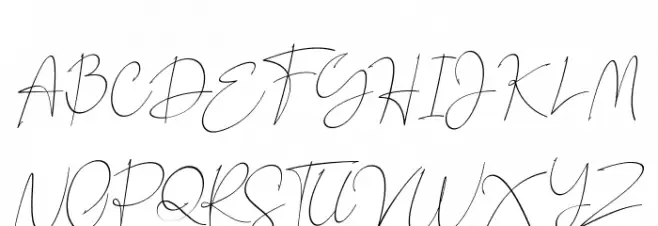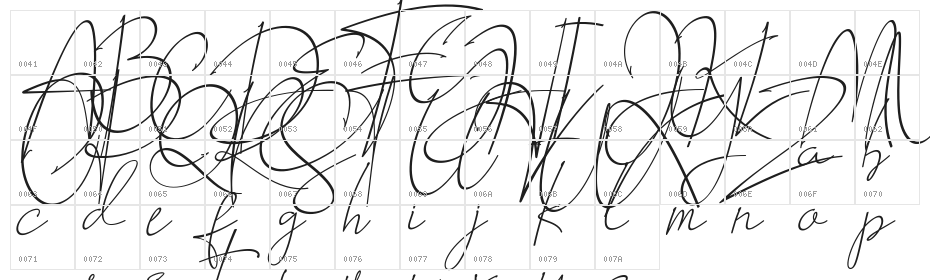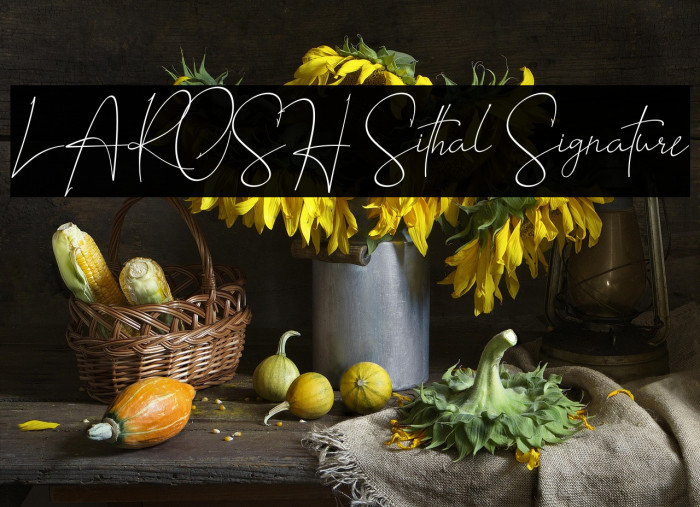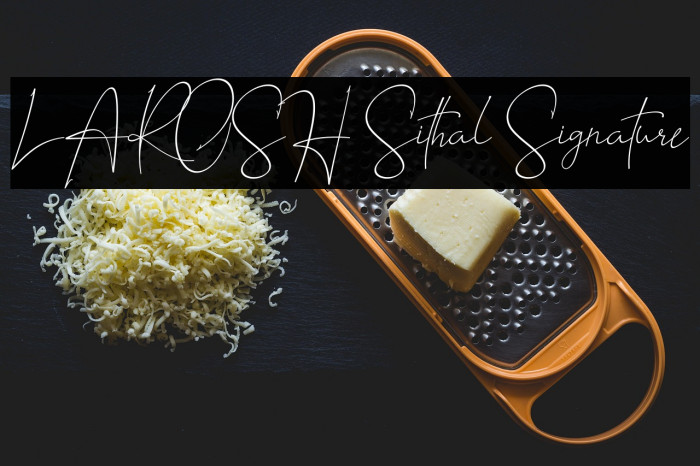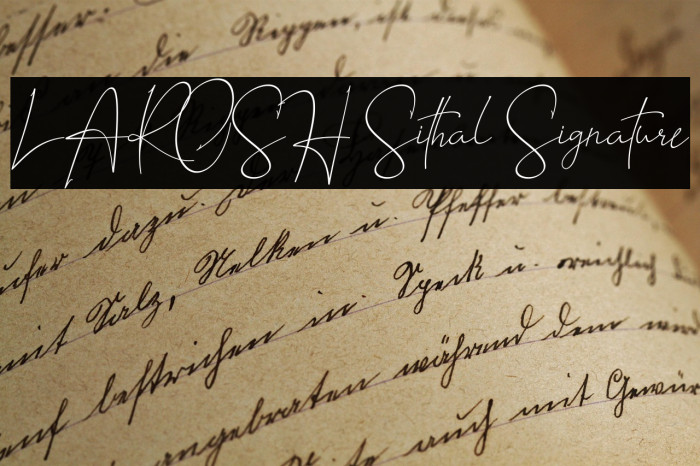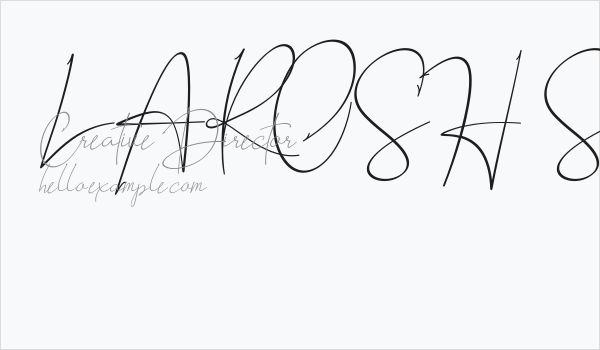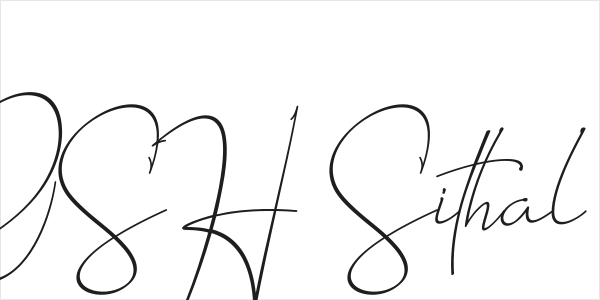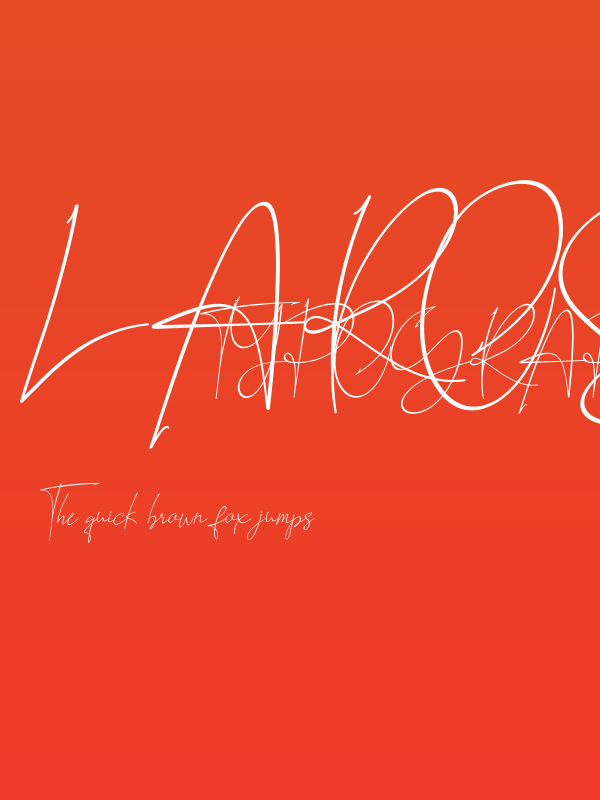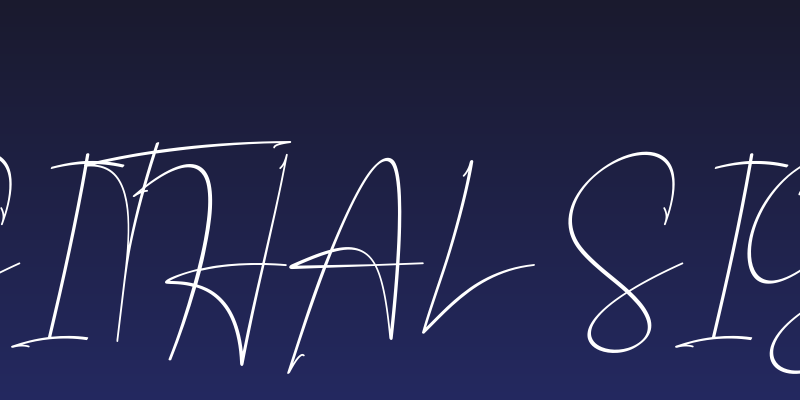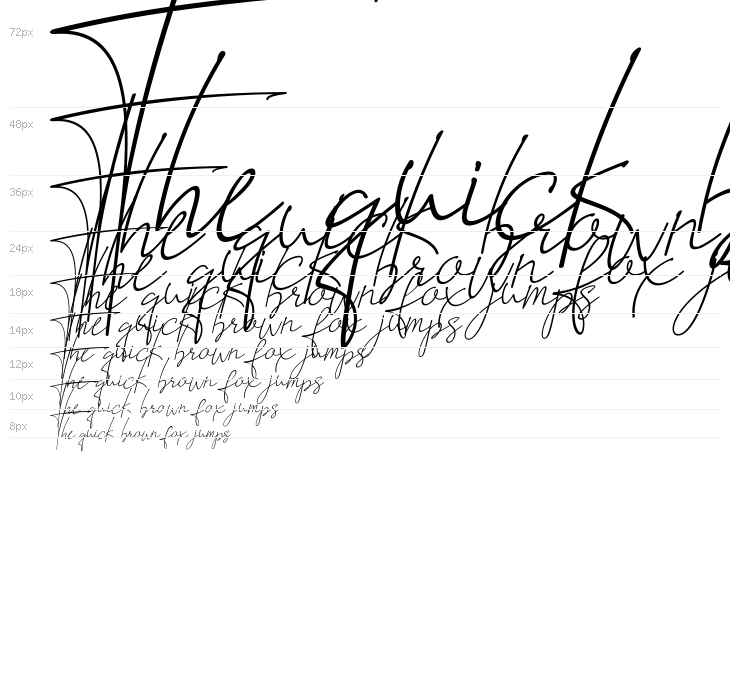
LAROSH Sithal Signature Font
LAROSH Sithal Signature Description
This elegant script font exudes a sophisticated and flowing style, characterized by its smooth, cursive strokes and graceful loops. The letters are interconnected, creating a seamless and fluid appearance that mimics the natural flow of handwriting. The font features a delicate balance between thin and slightly thicker lines, adding a touch of refinement and elegance. Its overall appearance is both modern and timeless, making it suitable for a variety of design projects. The uppercase letters are slightly more ornate, with extended flourishes, while the lowercase letters maintain a consistent and harmonious rhythm. This font is perfect for projects that require a personal touch, such as invitations, greeting cards, and branding materials.
| Overall Style | Elegant, Modern |
| Proposed Projects | Ideal for wedding invitations, personal branding, greeting cards, and elegant logos. |